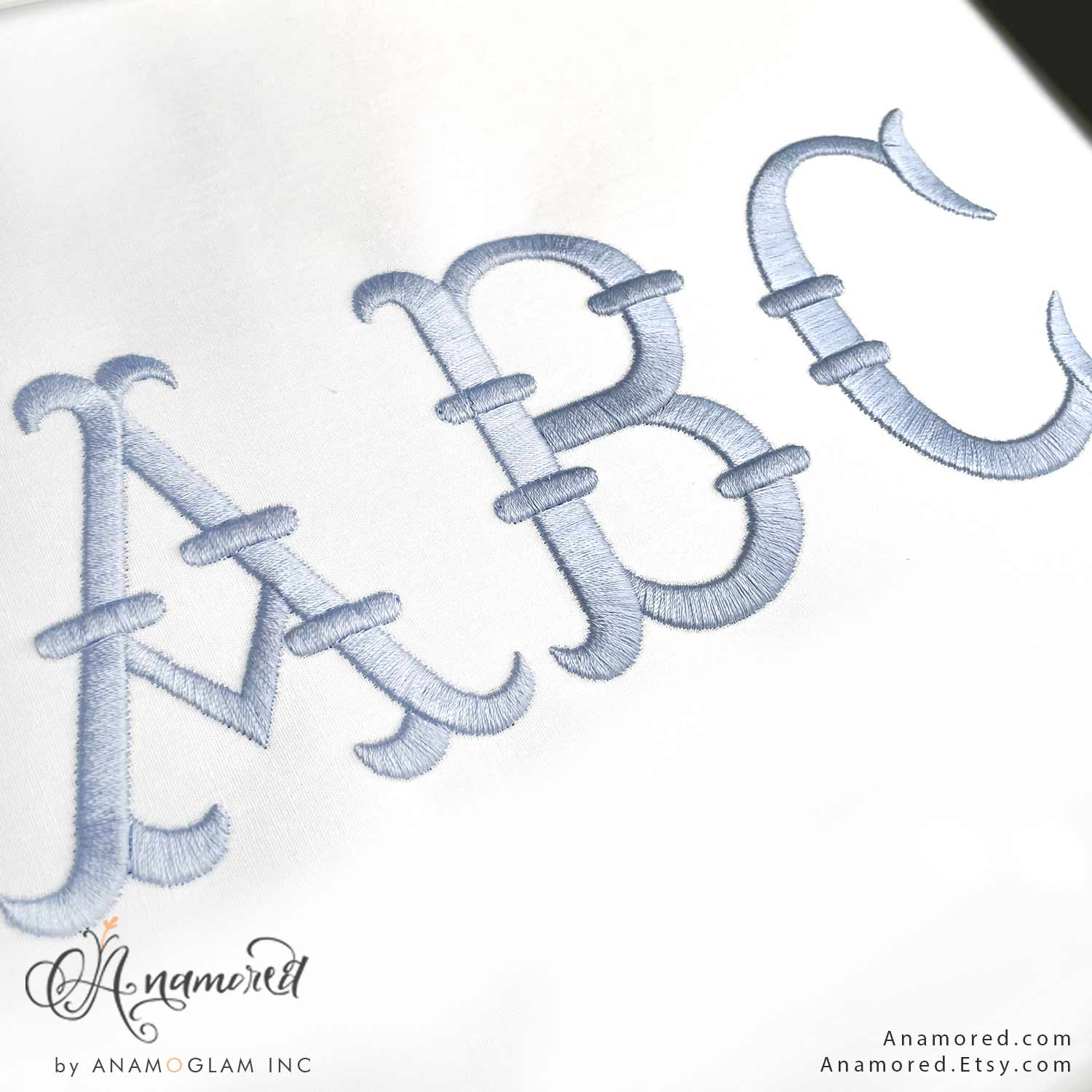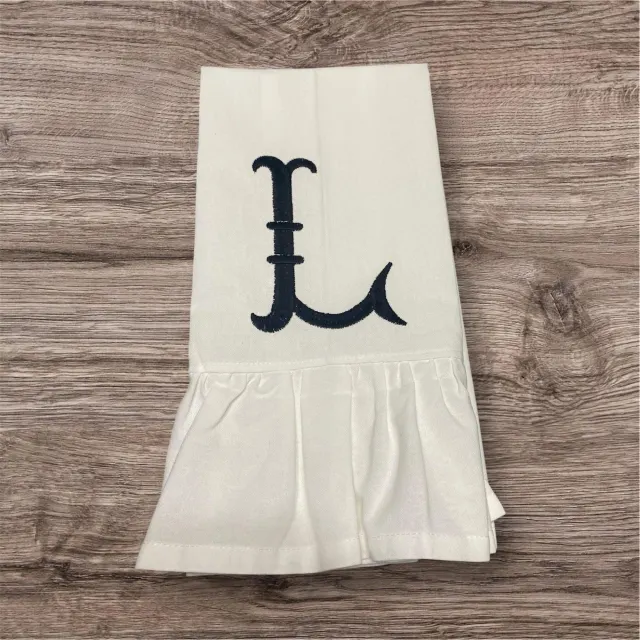
3 inch French Fishtail Embroidery Monogram Font
3 inches in height only, Uppercase Letters.
Great for athletic designs too.
Satin stitch.
3 inches in height only, Uppercase Letters.